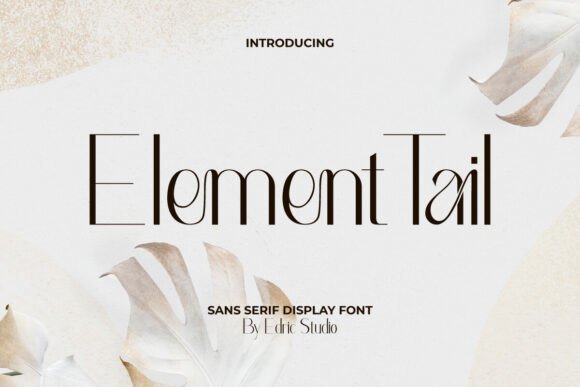
Discover the Art of Beautiful Typography with Element Tail Font
Have you ever been working on a design project, pouring your heart and soul into every detail, only to be stuck on the perfect font? The one that captures the essence of your vision and transports your audience to a world of creativity and beauty?
That’s where Element Tail Font comes in – a stunning display font that combines elegance and sophistication to create a truly unique visual experience. Designed to be versatile and adaptable, Element Tail Font is perfect for a wide range of industries, from fashion design to publishing, and everything in between.
As a designer, you know the value of a well-chosen font in elevating your work from ordinary to extraordinary. Element Tail Font is a valuable addition to your toolkit, offering a range of beautiful ligature characters that will take your designs to the next level.
Key Features of Element Tail Font
- Font Family: Element Tail Font is a sans-serif font family designed for digital interfaces.
- Character Count: The font family includes over 800 glyphs, covering a wide range of languages, including Latin, Cyrillic, and Greek scripts.
- Size and Resolution: Designed for use at medium to large sizes (14pt and above) and high resolutions (retina displays and above).
- Unique Characteristics: Element Tail Font features a distinctive, modern aesthetic with a focus on legibility and readability, making it ideal for digital interfaces, user interfaces, and branding materials.
- Font Weight and Style: Available in 6 weights (Light, Regular, Medium, SemiBold, Bold, and Black) and 3 styles (Regular, Italic, and Bold Italic) for added flexibility and expressiveness.
Review of Element Tail Font
Overall, I’m really impressed with Element Tail Font. Here are a few things that work well: ✨
- The font has a sleek, modern design that’s perfect for digital products and apps.
- It’s highly customizable, with a wide range of weights and styles to choose from.
- The font is optimized for readability on screens, making it perfect for web and mobile use.
- The font may not be as suitable for print materials, as it can appear a bit thin and delicate.
- Some users may find the font to be too minimalist or lacking in personality.
- The font doesn’t include as many alternate characters as some other fonts, which can be a limitation for certain designs.
Overall, I think Element Tail Font is a great choice for digital designers who want a clean, modern look. While it may have some limitations, it’s a solid choice for web and mobile projects.
To get the most out of Element Tail Font, experiment with different font sizes and styles to achieve the desired look. This font is particularly well-suited for titles, headings, and other prominent text elements.
Common use cases for Element Tail Font include:
- Creative projects, such as infographics and posters
- Branding and marketing materials, such as logos and business cards
- Designing digital products, such as websites and mobile apps